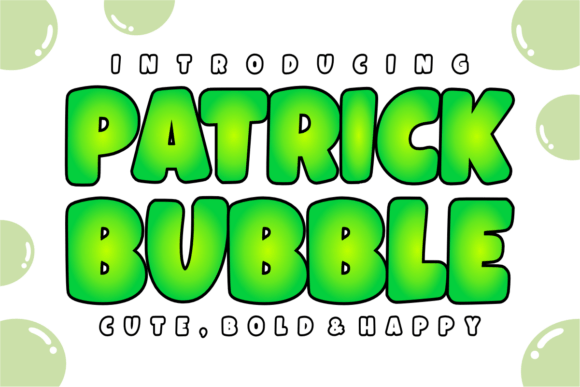
Patrick Bubble: A Joyful Display Font for Handmade Creators
It started with a candle label. I’d just poured my first small-batch lavender-vanilla soy candles and reached for my go-to font—something clean, safe, and familiar. But as I typed “Hand-Poured • Small Batch • Made with Love,” the words felt flat. Lifeless. Like they were whispering instead of smiling. That’s when I opened Patrick Bubble.
Instantly, everything shifted. The thick, rounded letterforms bounced onto the screen like soap bubbles catching sunlight—soft edges, bold presence, unapologetically cheerful. This isn’t just another display font; it’s a mood lifter in typeface form. Each character feels hand-inflated and gently squeezed—playful without being childish, bold without being aggressive, friendly without fading into background noise.
I tested it on a few real projects right away: a set of birthday greeting cards for a local boutique, a welcome sign for a friend’s backyard wedding, and a series of printable planner stickers themed around self-care and celebration. Every time, Patrick Bubble added warmth and intention—not just decoration. It didn’t shout over the design; it invited the eye in, then held attention with its gentle rhythm and consistent roundness.
As a maker who designs both physical and digital products, I need fonts that work across contexts—and Patrick Bubble delivers. On printed candle labels (especially matte kraft or soft-touch sticker stock), its generous x-height and open counters stay crisp even at 14–18pt. For vinyl-cut tote bag designs or Cricut-ready SVG files, the smooth curves cut cleanly without jagged joins or thin stress points. And on digital downloads—like printable wall art or editable Canva templates—the font renders beautifully on screens and prints with rich, even ink coverage.
It shines brightest in short, high-impact uses: product names (“Sunshine Jar”), shop tags (“Handmade with Heart”), seasonal phrases (“Cozy Season,” “Hello Spring!”), and celebratory headers (“You’re Invited!”, “Just Married”). Because it’s designed as a display font, it’s not meant for long paragraphs—but that’s exactly why it works so well for handmade creators. We rarely need novels on our packaging or tags. We need moments of connection. A name. A feeling. A spark.
I’ve used Patrick Bubble for farmhouse-style wooden signs (paired with a light sans serif for body text), boutique gift tags (printed on recycled cardstock), and even mug mockups for client presentations. In each case, the font elevated the perceived care and craftsmanship—like the product itself had been thoughtfully wrapped before it even left my hands.
Readability matters, especially when cutting or printing small. I’ve found Patrick Bubble holds up well down to 10pt on high-res printouts and stays legible at 12mm height on die-cut stickers—just avoid tight kerning or ultra-thin outlines if you're laser-cutting fine details. For Cricut or Silhouette users: test a single word first using the OTF file (it handles vector paths more predictably than TTF in many design apps). And always check your software’s text-to-path conversion settings—some auto-smooth functions can soften the bubbly charm if over-applied.
Font pairing is where Patrick Bubble really sings. Its joyful personality pairs beautifully with grounded, neutral companions: a clean sans serif like Montserrat or Inter for ingredient lists or care instructions; a delicate script for names or monograms (think “Emma & James” in Patrick Bubble, followed by their initials in a flowing script); or even a quiet serif like Lora for invitation body copy. I’ve even layered it over subtle watercolor textures or linen backgrounds—it never gets lost, but it also doesn’t dominate. It plays well with others.
What surprised me most wasn’t how fun it looked—but how *consistent* it felt across my shop. Using Patrick Bubble for my holiday gift tags, my spring planner pages, and my new line of bath salt jars created an invisible thread through everything. Customers don’t need to see my logo every time—they recognize the tone. The bounce. The warmth. That’s brand identity built not with logos alone, but with thoughtful typography choices.
It’s also become my go-to for preview images. When listing a new printable on Etsy or sharing a mockup on Instagram, Patrick Bubble makes titles pop against neutral backdrops—no extra filters or effects needed. It adds personality without clutter, clarity without coldness. And because it’s a premium font—not a free Google Font—it subtly signals quality and intentionality to other makers browsing my shop or social feed.
If you’re choosing a display font for your next round of handmade labels, greeting cards, wedding stationery, or digital printables, ask yourself: does it reflect the joy behind your making? Does it feel like an extension of your hands—not just your software? Patrick Bubble does that. Not perfectly, not universally, but warmly, consistently, and with real charm.
It won’t fix a messy layout or substitute for good color theory—but it will make your “Thank You” tag feel like a hug. Your “New Arrival” banner feel like confetti. And your shop’s voice feel unmistakably, unforgettably *yours*.